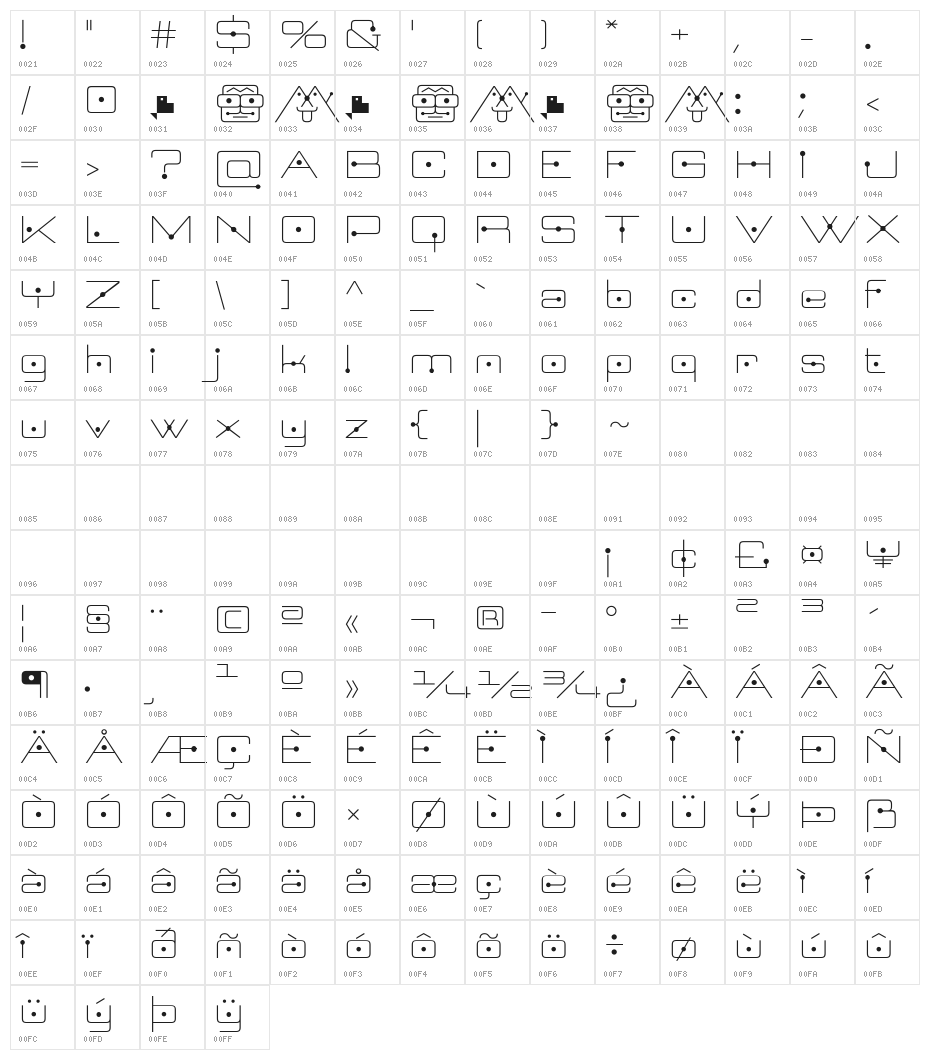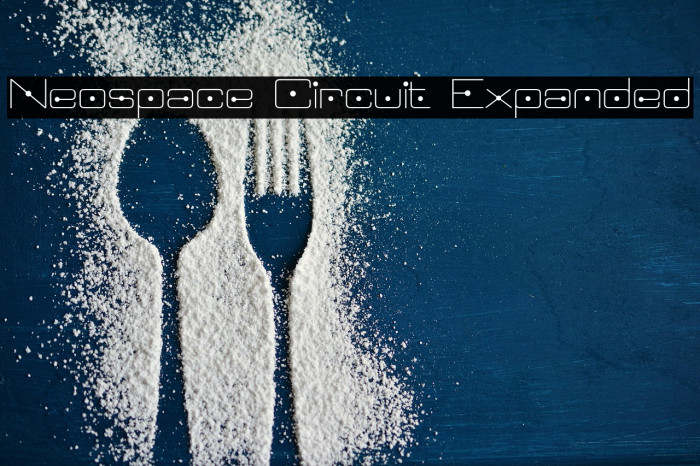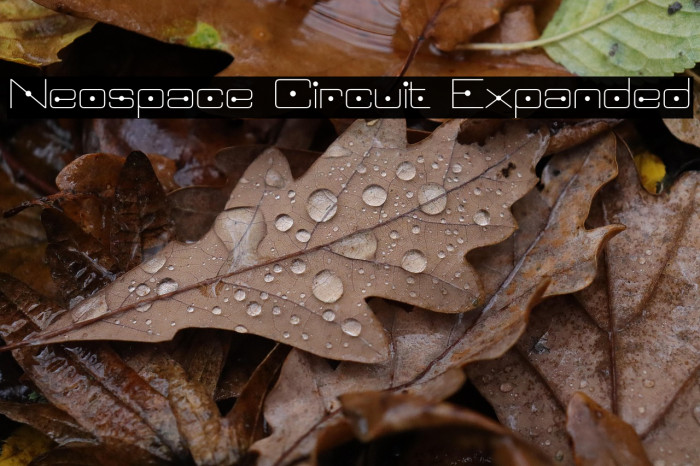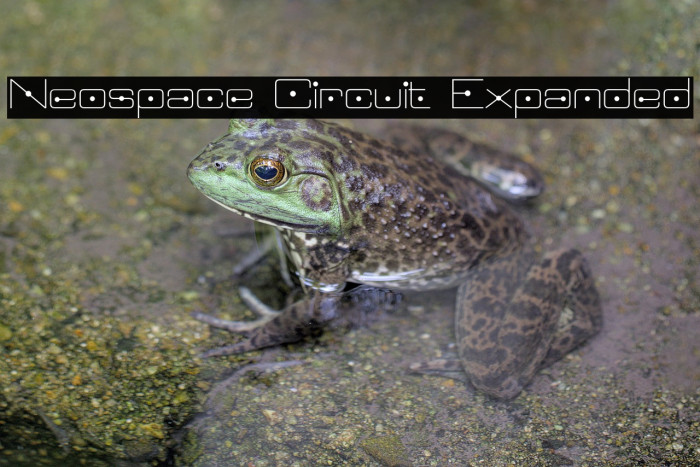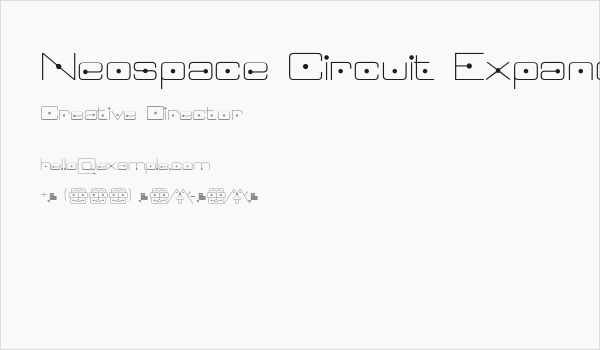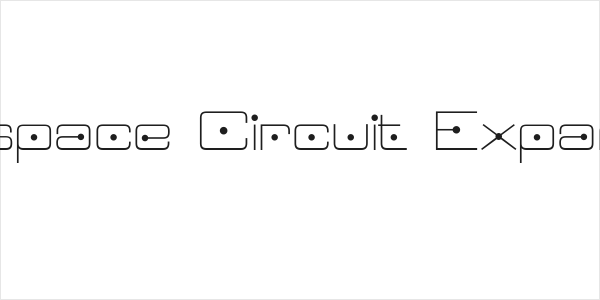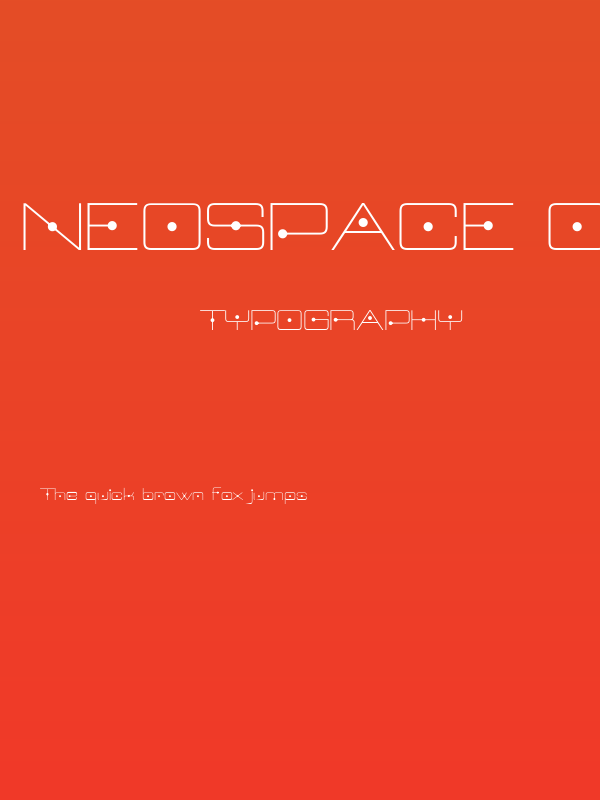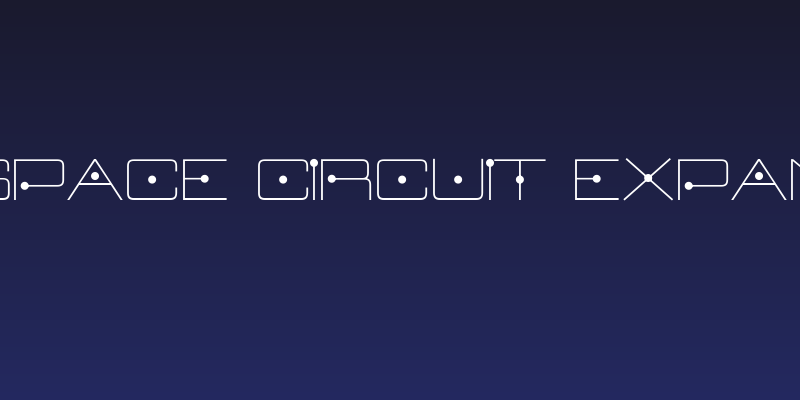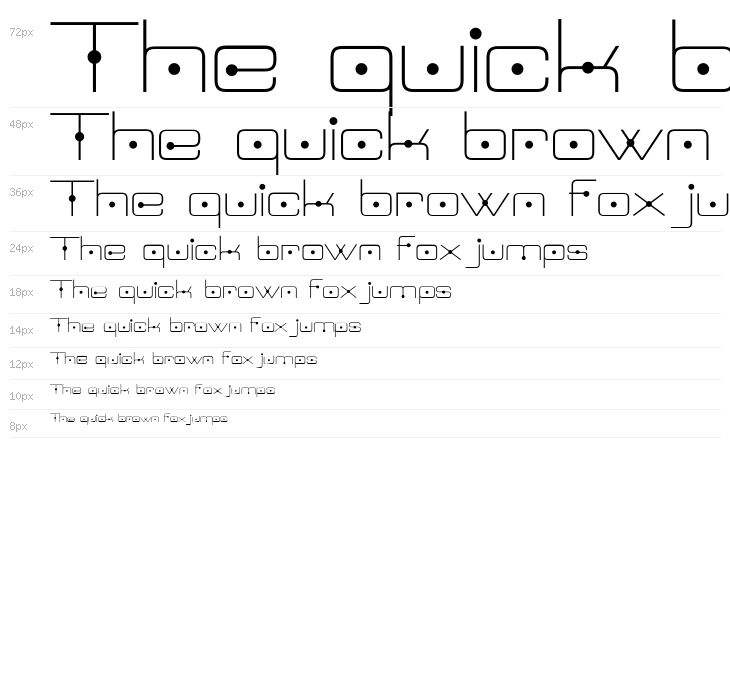
Neospace Circuit Expanded Font
Neospace Circuit is an avant-garde typeface designed for lovers of technology and science fiction. With its elegant extended proportion and geometric minimalism, Neospace redefines typographic aesthetics with a perfect fusion between modern and futuristic
| 使用场景 | Logos, Headlines, Digital Interfaces |
| 推荐项目 | Ideal for tech branding, digital interfaces, sci-fi posters, and innovative product packaging. |